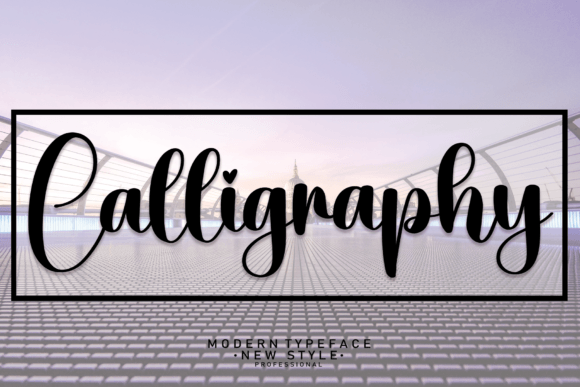
The Elegance of Calligraphy Font: A Designer’s Delight
I still remember the time I was working on a wedding invitation project, and my client specifically asked for a font that would add a touch of romance and sophistication. I scoured through countless font libraries, but nothing seemed to fit the bill. That’s when I stumbled upon Calligraphy Font, a stylish and elegant handwritten script font that instantly caught my attention. With its flowing curves and refined strokes, it was the perfect fit for the project. In this article, I’ll share my love for Calligraphy Font, its features, and how to make the most of it in your designs.
What I Love About Calligraphy Font
Here’s what makes Calligraphy Font a standout:
- ✨ Elegant and sophisticated: Calligraphy Font exudes refinement and luxury, making it perfect for high-end projects.
- ✅ Versatile: From greeting cards to headlines, this font can be used in a wide range of applications.
- 💫 Romantic feel: The font’s flowing curves and delicate strokes add a touch of romance to any design.
- 🎨 Highly customizable: With OpenType features and glyphs, you can experiment with different variations to create a unique look.
While Calligraphy Font is an excellent choice, there are a few things to keep in mind:
- 🤔 Limited use in body text: Due to its elegant and cursive nature, Calligraphy Font might not be the best choice for lengthy body text.
- ⚠️ May not work well in small sizes: The font’s intricate details might get lost when scaled down, so it’s best used in larger sizes.
The Story Behind Calligraphy Font
Calligraphy Font was inspired by traditional calligraphy techniques and the work of renowned calligraphers. Its creator aimed to craft a font that would bring elegance and sophistication to digital designs. With its intricate details and refined strokes, Calligraphy Font has become a popular choice among designers and crafters.
| What is Calligraphy Font? | Calligraphy Font is a stylish and elegant handwritten script font designed for creative projects. |
| Is Calligraphy Font suitable for body text? | While Calligraphy Font is elegant, it’s not ideal for lengthy body text. It’s best used for headlines, titles, or short paragraphs. |